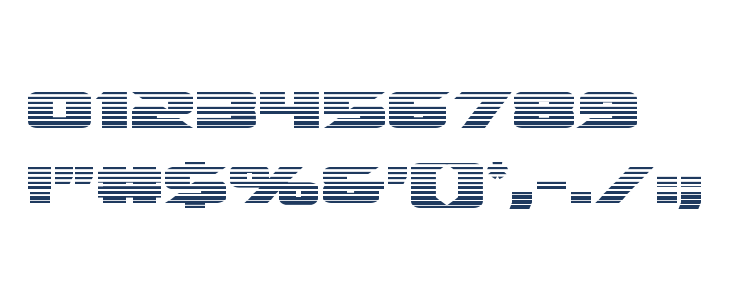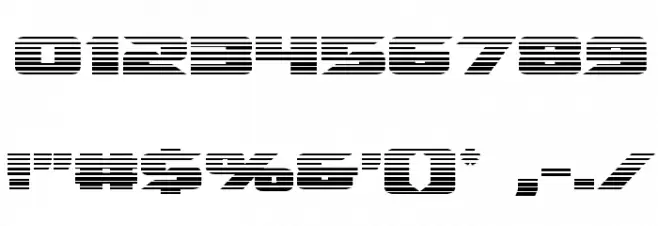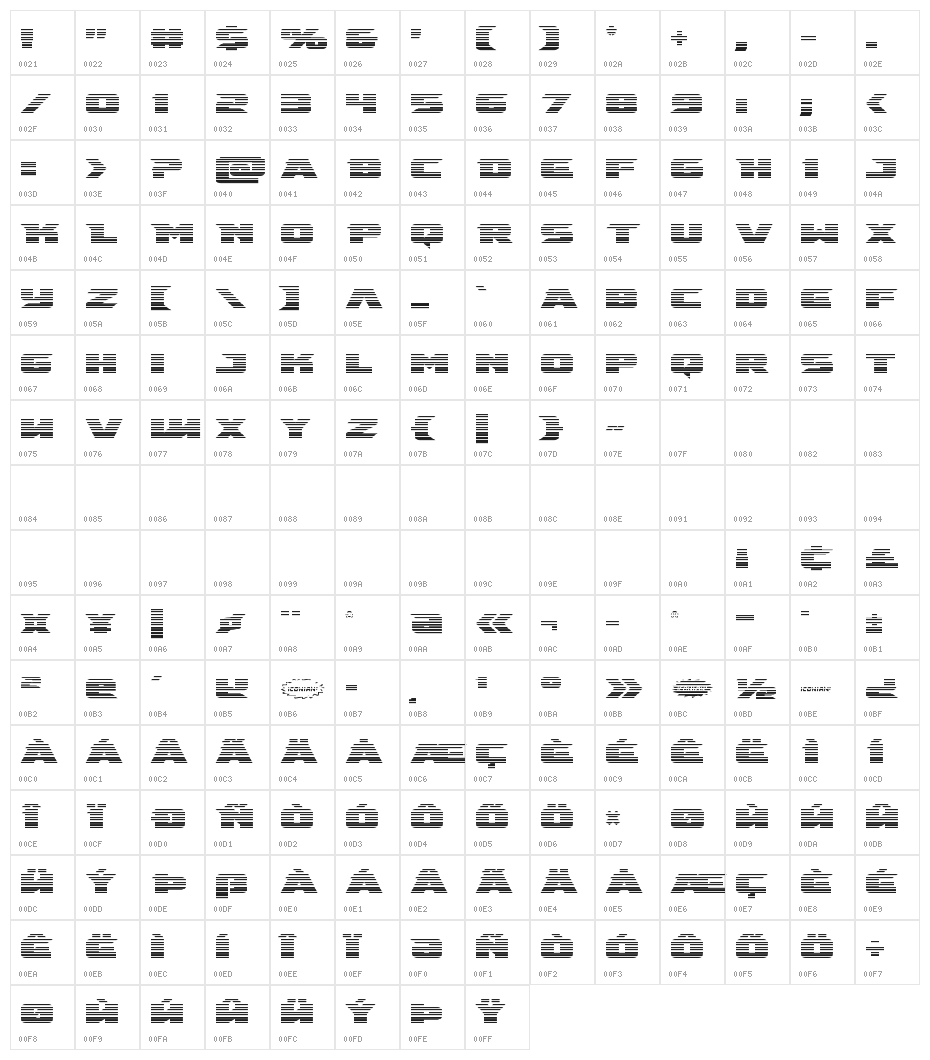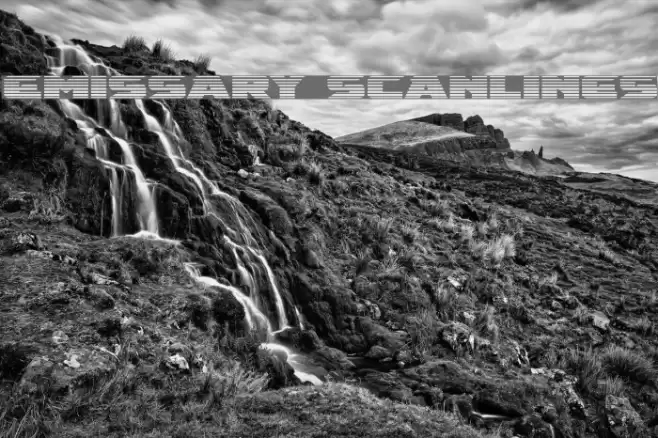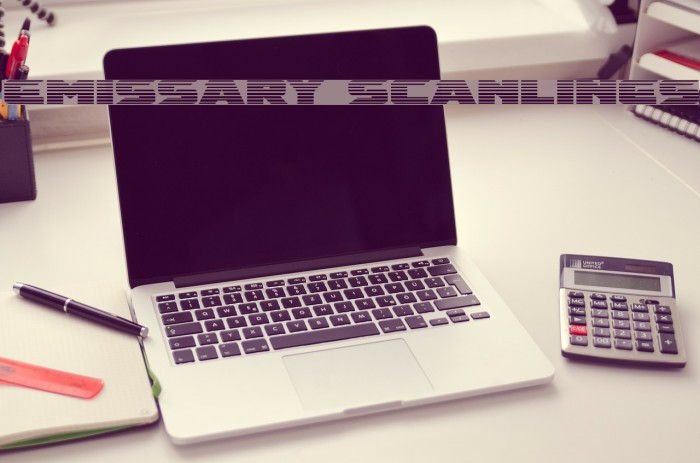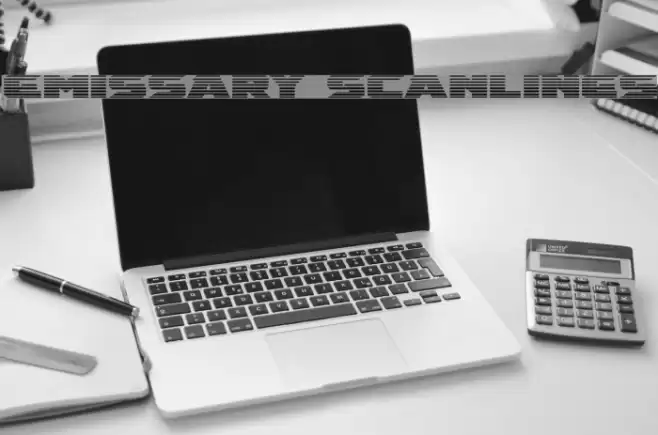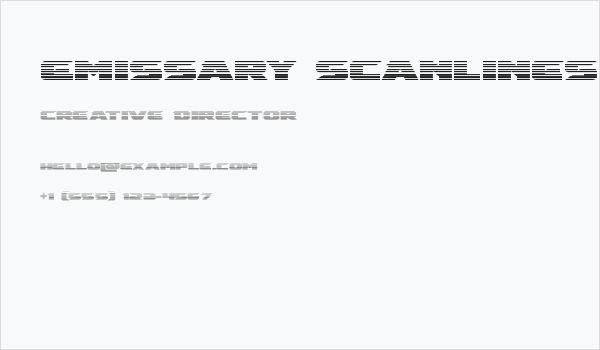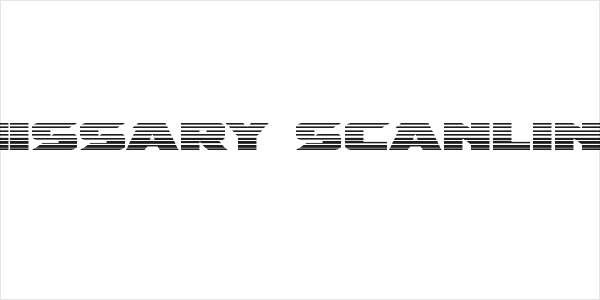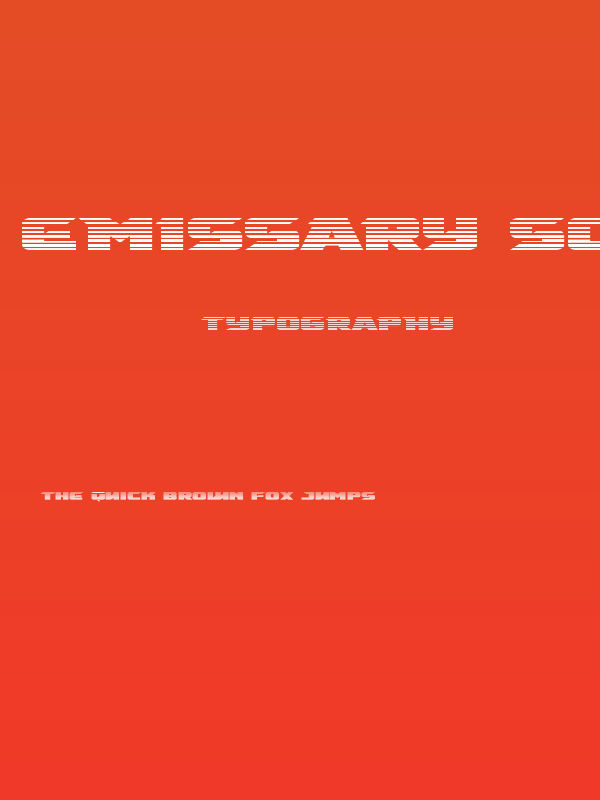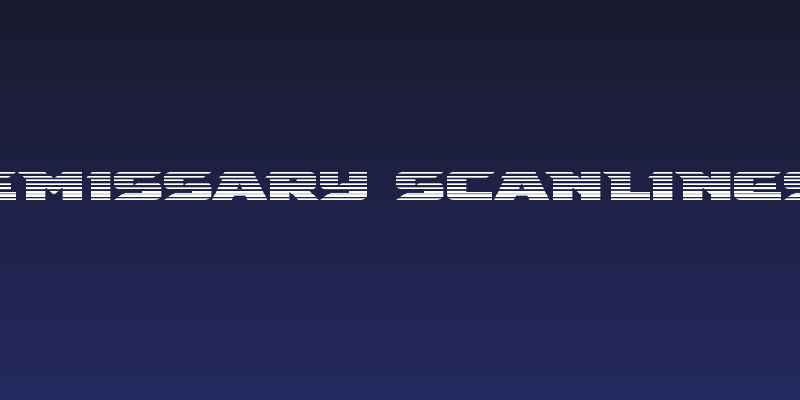
Emissary Scanlines Font
Emissary Scanlines Description
This font features a unique design with horizontal scanlines running through each character, creating a futuristic and digital appearance. The uppercase and lowercase letters, as well as numbers and special characters, are all constructed with bold, geometric shapes that are intersected by evenly spaced lines. This gives the font a distinct, high-tech aesthetic reminiscent of early computer graphics or retro gaming interfaces. The characters are wide and have a strong presence, making them ideal for attention-grabbing headlines or display purposes.
WidthExpanded
Overall StyleFuturistic
Use CaseHeadlines, Logos, Display text
Proposed ProjectsIdeal for tech-themed projects, retro gaming designs, digital art, and sci-fi movie posters.